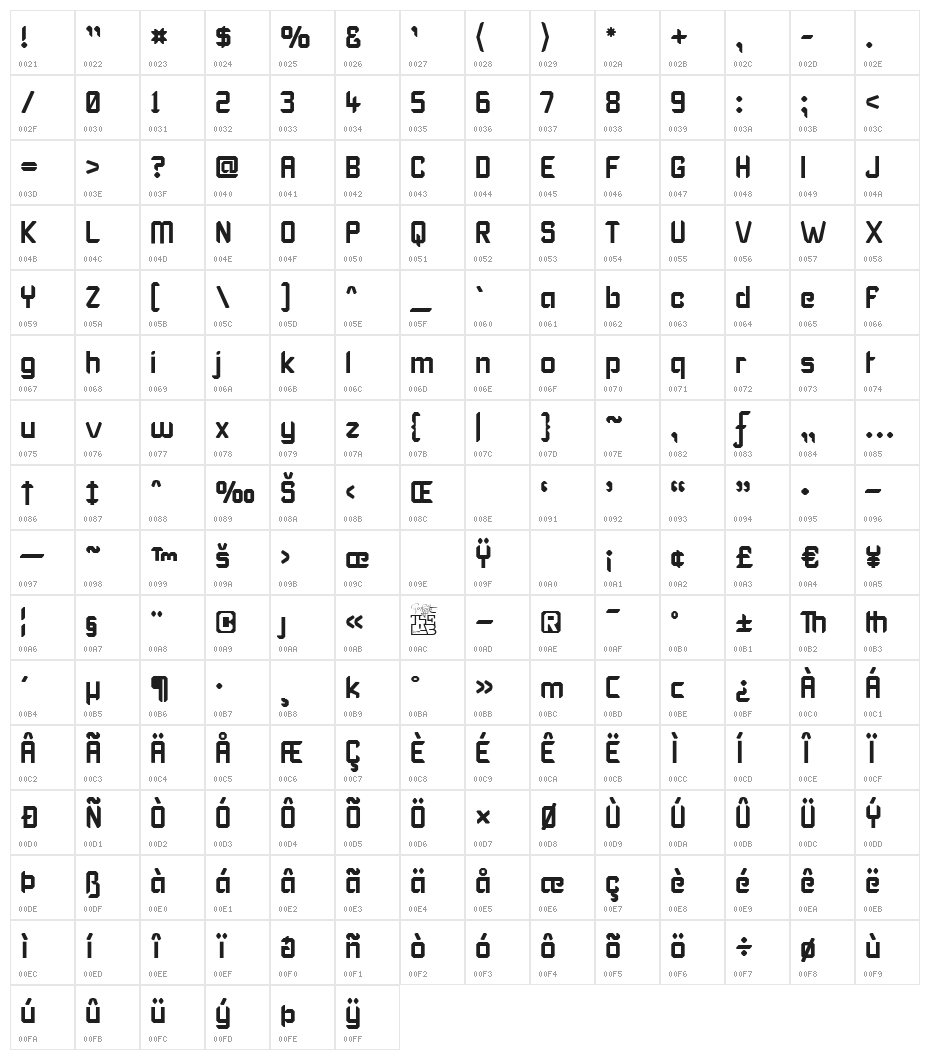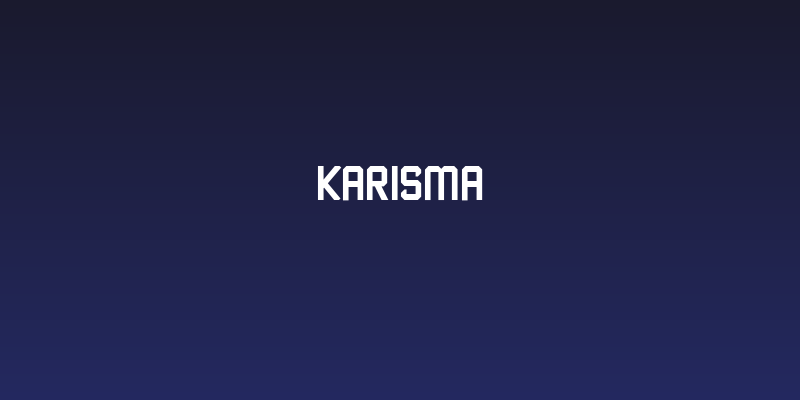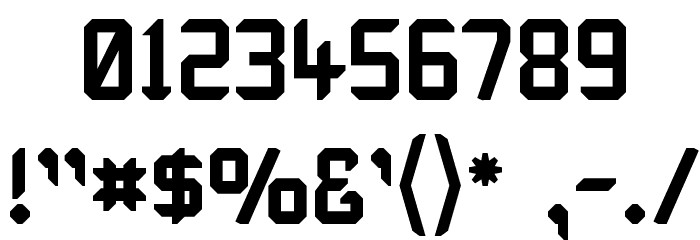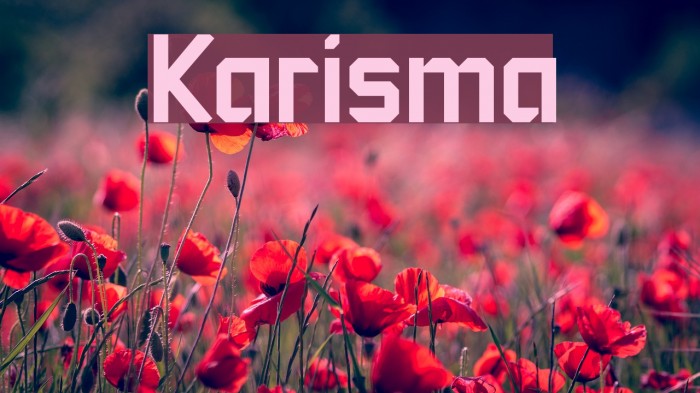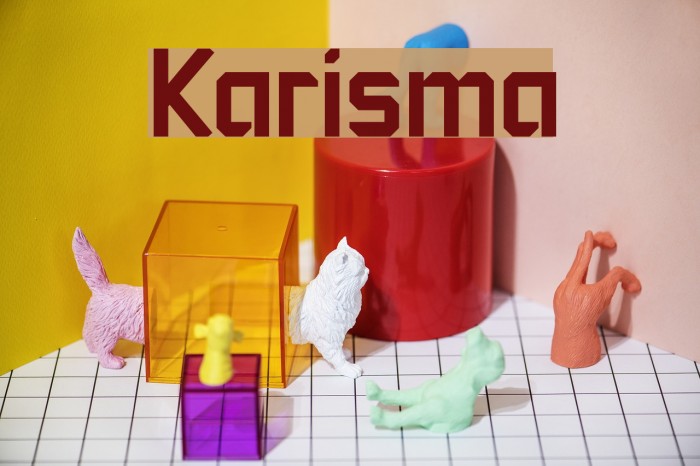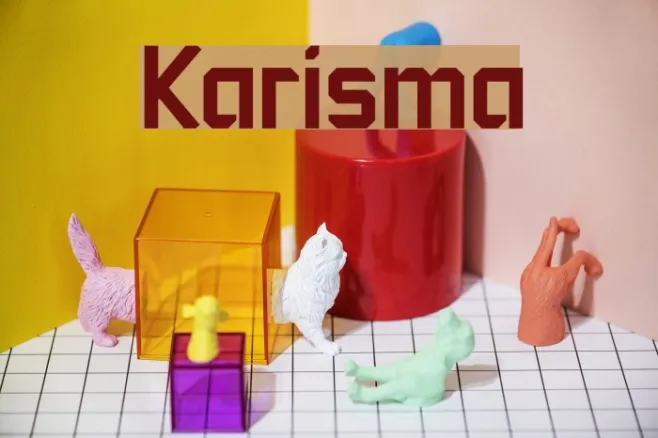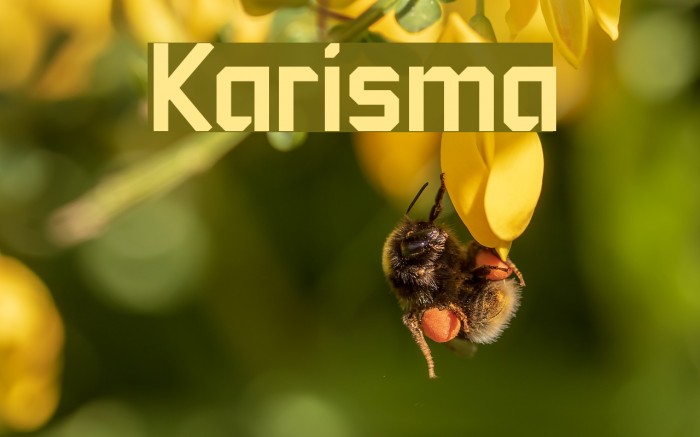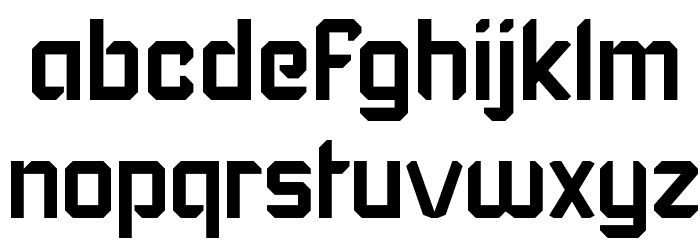
Karisma Font
Karisma Description
This font features a bold and geometric design, characterized by its blocky and angular letterforms. The uppercase and lowercase letters maintain a consistent width, creating a uniform appearance. The numerals and special characters follow the same stylistic approach, ensuring cohesion across all elements. The font's structure is modern and slightly futuristic, with a strong emphasis on straight lines and sharp angles. The overall aesthetic is clean and impactful, making it suitable for attention-grabbing designs.
| Proposed Projects | Ideal for branding, posters, headlines, and any project requiring a modern and bold typeface. |